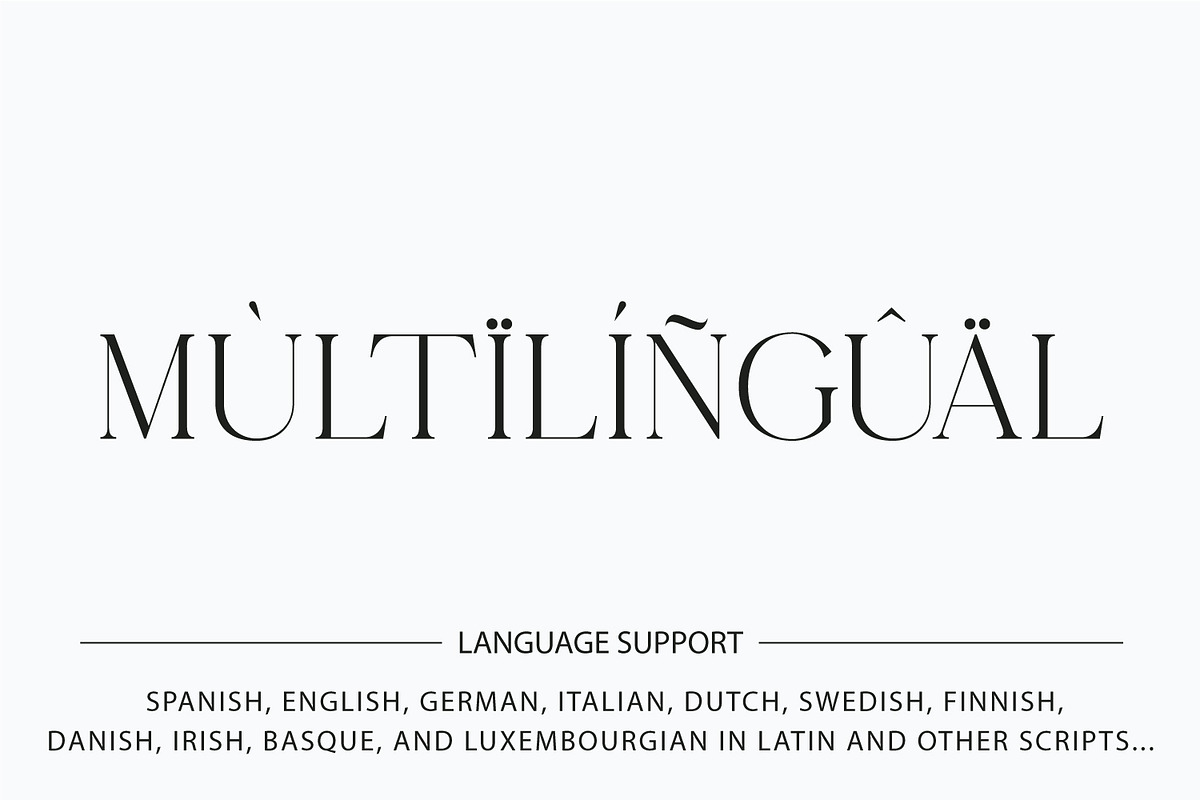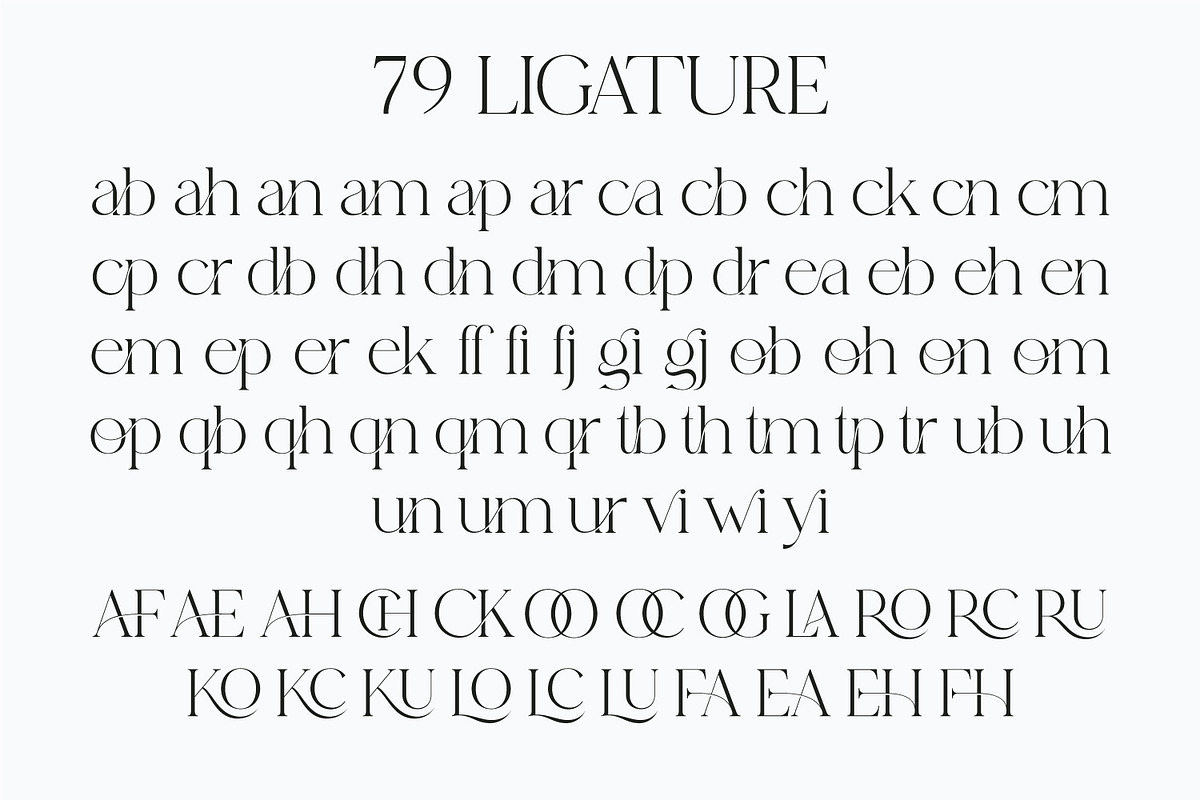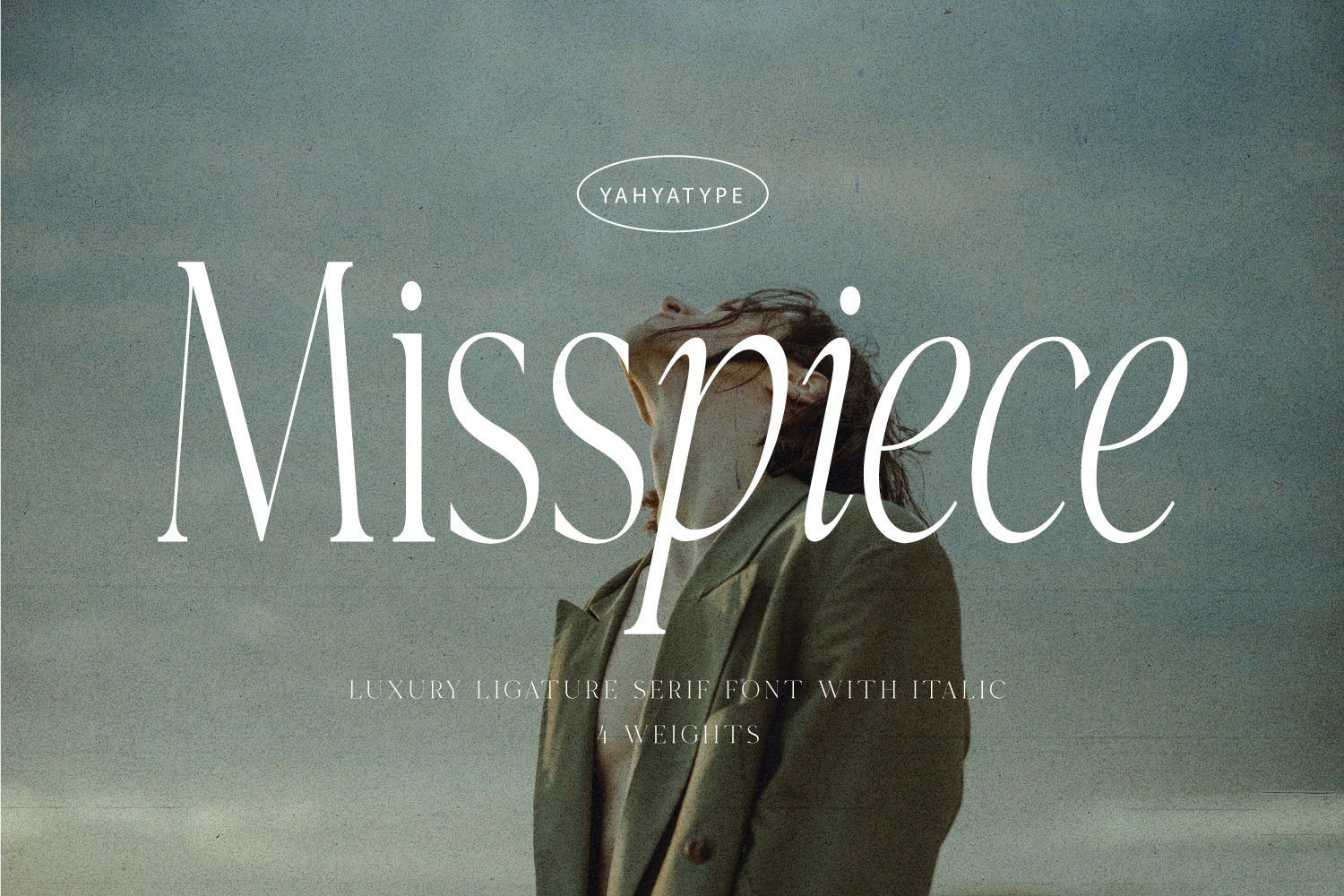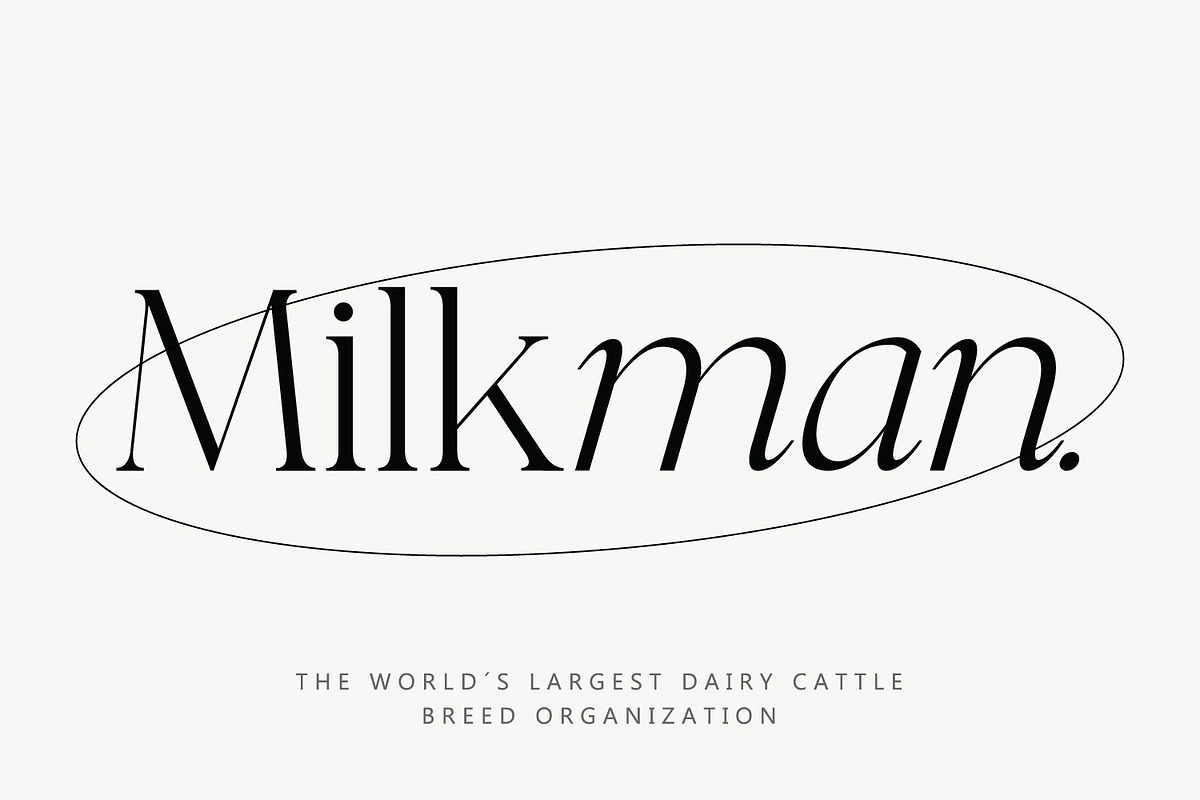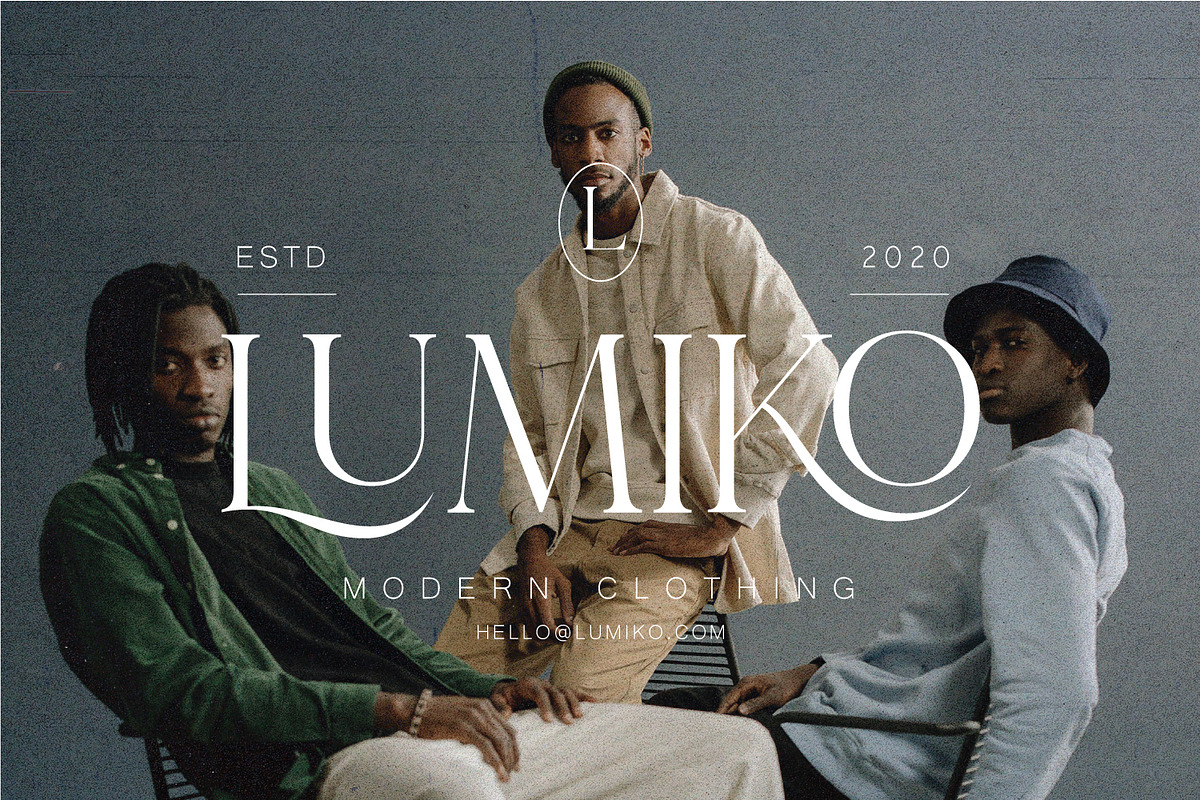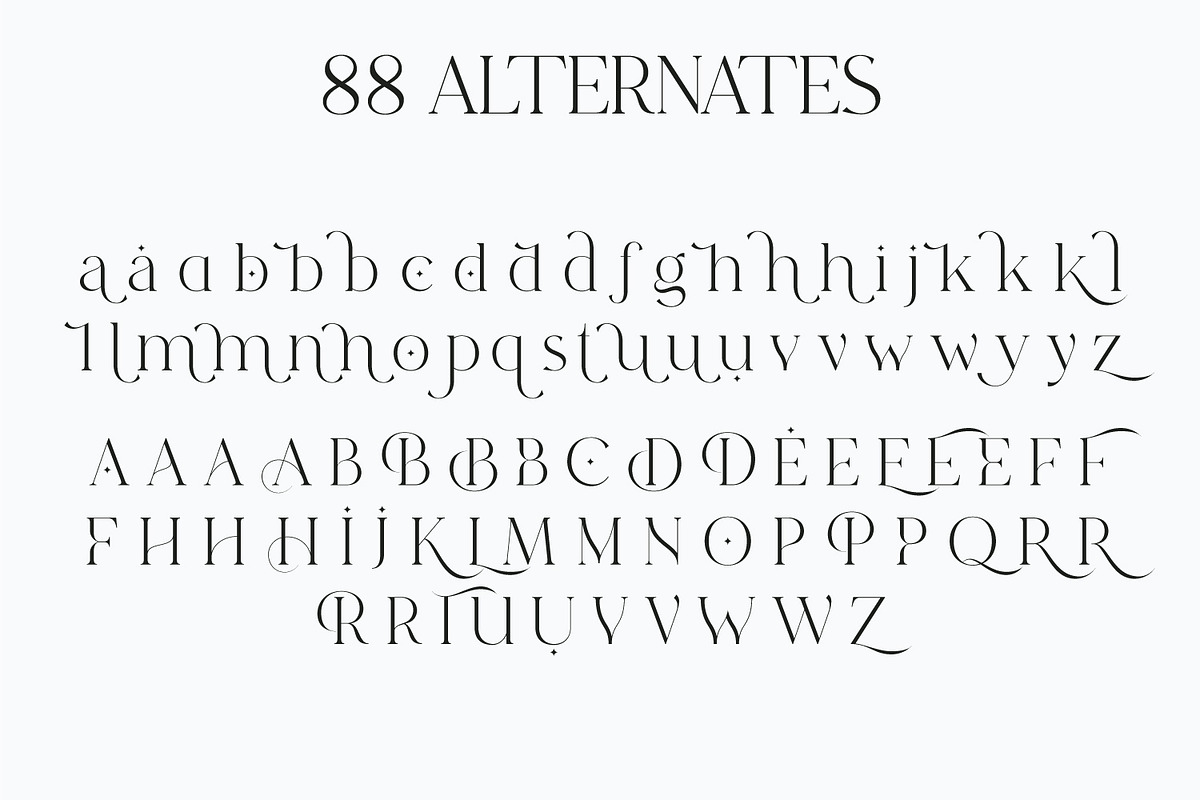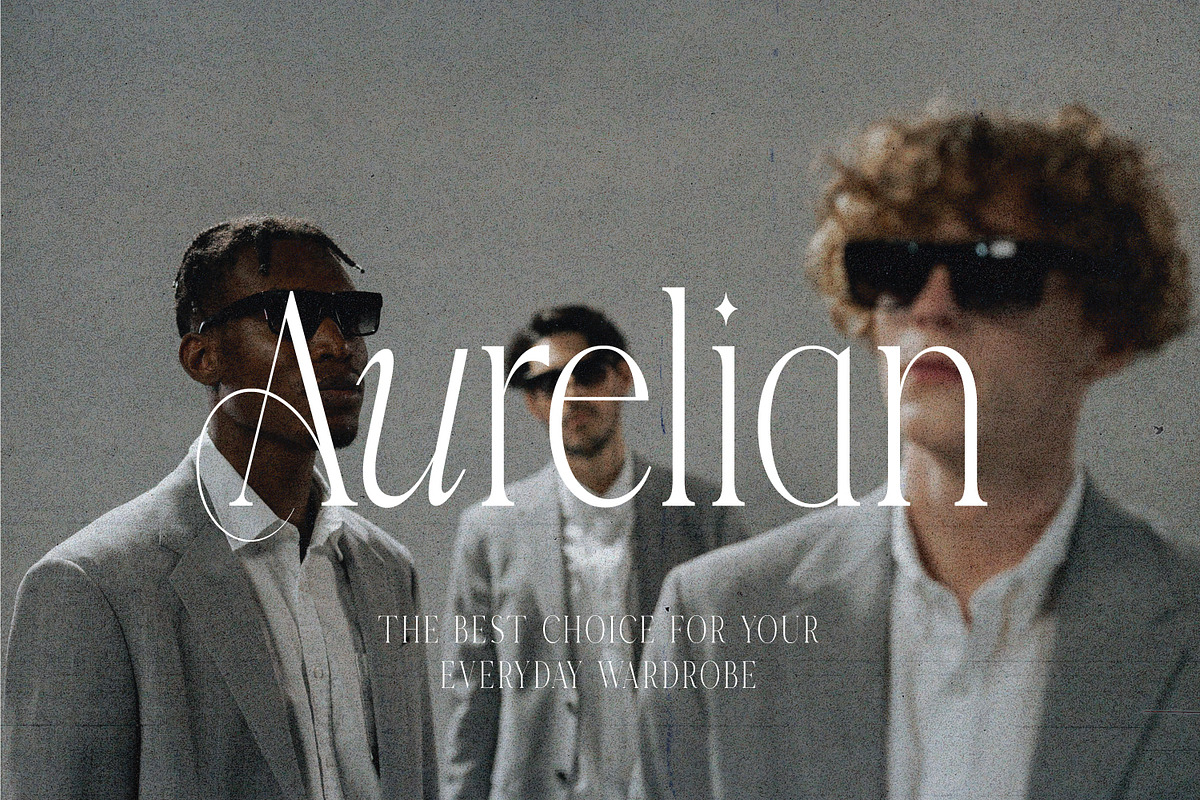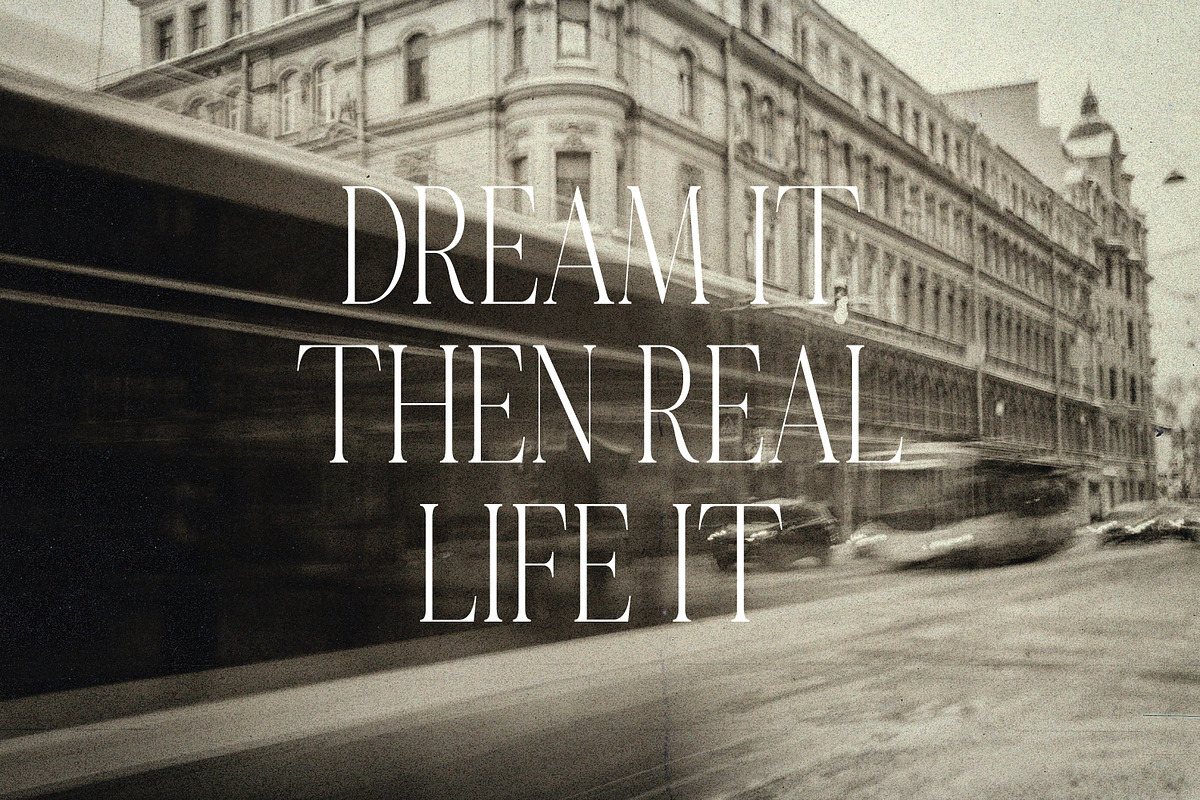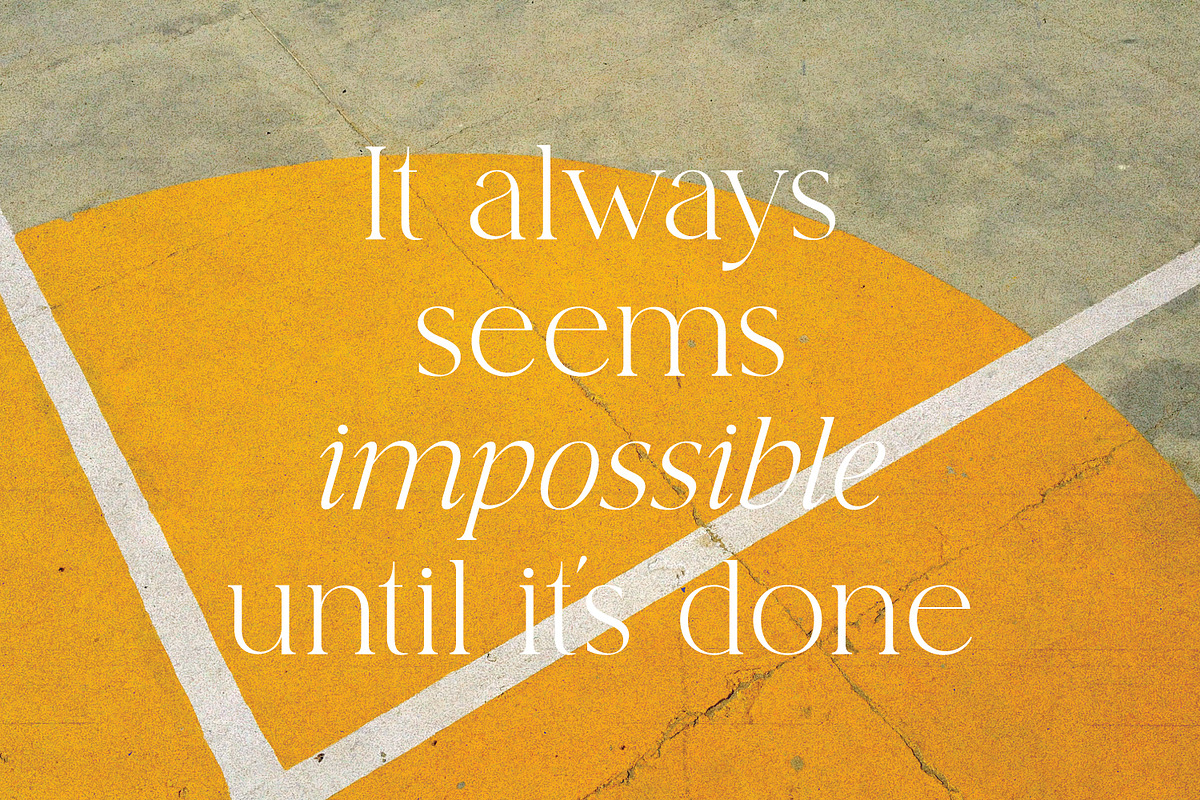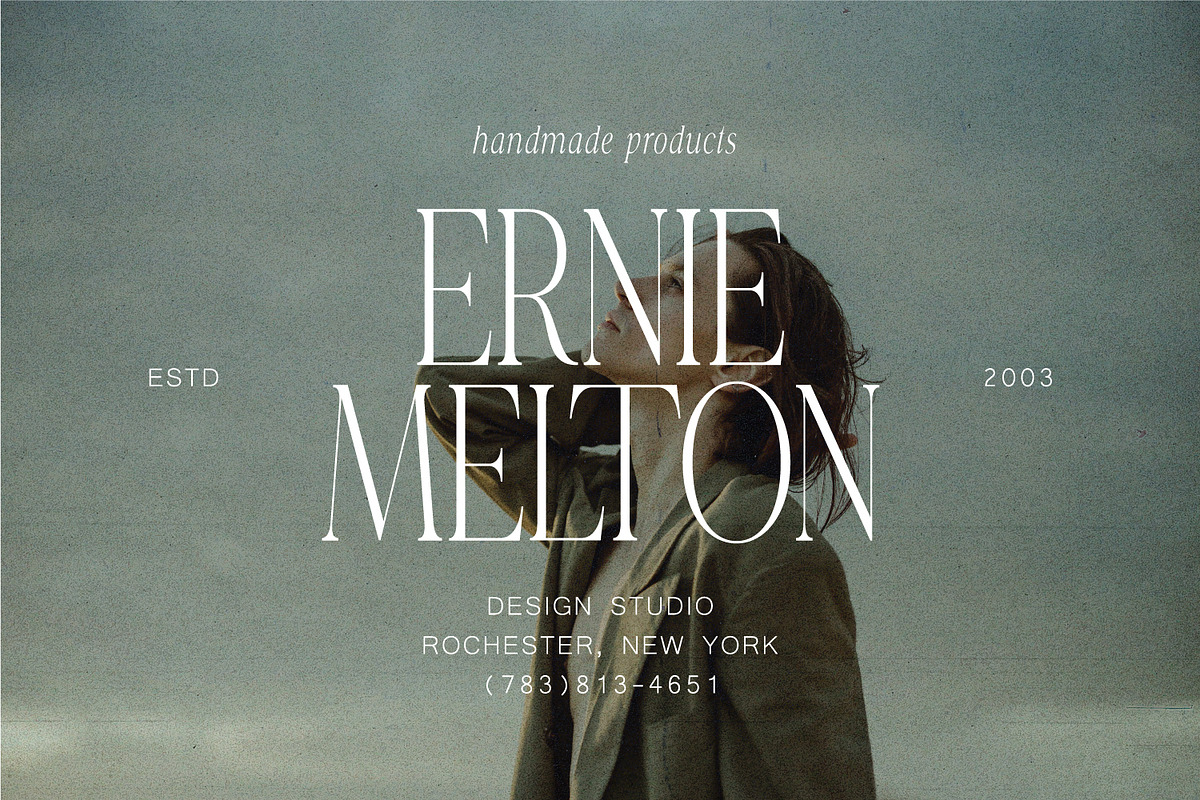
Misspiece – Stylish Modern font
Introducing Misspiece, a refined luxury serif font that features graceful ligatures and a beautifully crafted italic version. This timeless typeface elegantly fuses vintage charm with a contemporary twist, perfect for creating a sophisticated aesthetic across various design applications.
Perfect for premium branding, magazine layouts, wedding suites, luxury packaging, and social media content that needs a romantic yet refined touch, Misspiece brings artistic depth and beauty to every character.
- Misspiece (uppercase & lowercase)
- Ligature & Huge Stylistic alternate
- Multilingual support.Perfect for premium branding, magazine layouts, wedding suites, luxury packaging, and social media content that needs a romantic yet refined touch, Misspiece brings artistic depth and beauty to every character.